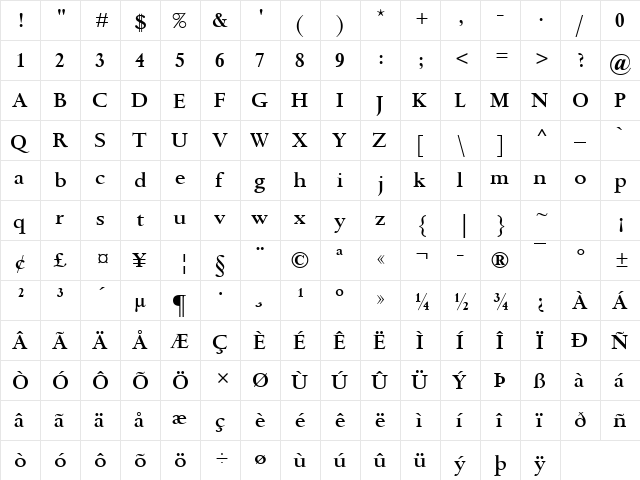
Spectrum MT SemiBold
| Foundry | Agfa Monotype Corporation |
Design Context for Spectrum MT Typeface
Spectrum MT takes a measured approach to typography — its balanced proportions and neutral character make it a reliable workhorse for both digital and print work. The heavy weight commands attention and anchors typographic hierarchies.